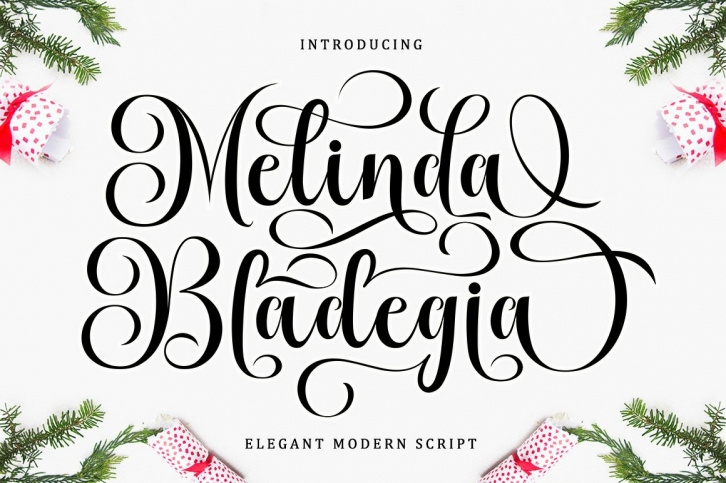
Melinda Bladegia is a great font that was designed by bungletter. Imagine the amount of combinations you can create using this font! The archive is 9.30 MB and it was released on August 31, 2022. Melinda Bladegia looks beautiful on wedding invitations, greeting cards, logos, posters, labels, t-shirt designs, logos, business cards and is perfect for use in ink or watercolor works, fashion, magazines, packaging and food menus, children's books and more!